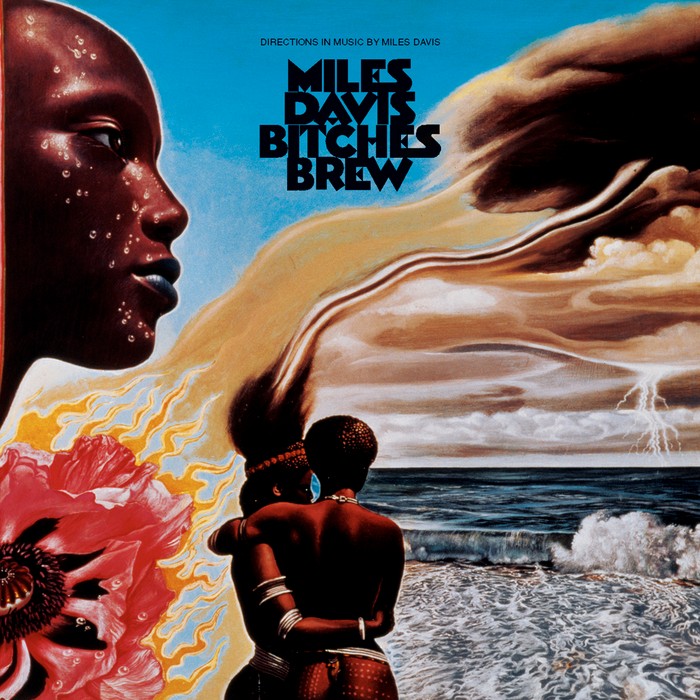
Bitches Brew (Miles Davis) Font
Fonts in UseBitches Brew is a 1970 jazz fusion album by Miles Davis, incorporating rock, funk, and world music. It's a groundbreaking masterpiece and a pivotal work in the development of jazz fusion.
The album cover artwork for Bitches Brew was created by Mati Klarwein, a German painter. The text on the album features Novel Gothic, a font produced by ATF in the 1920s. Although the digital version of the original font is not available, there are other Art Deco fonts, such as Napoli Serial, Nick Curtis’s Telenovela and Castcraft’s Novel Gothic, that you can check out.